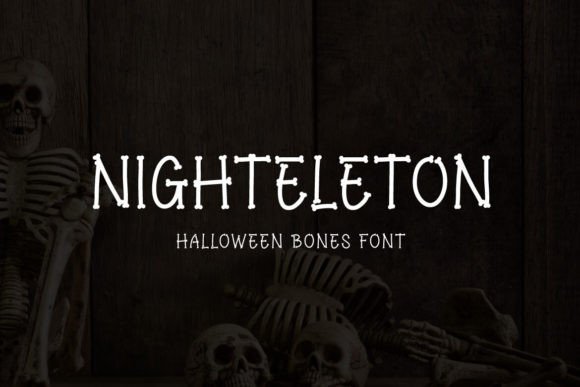
Journey into the realm of the supernatural with Nighteleton, a decorative font family that will cast an eerie spell on your designs. This Halloween-inspired creation from Mightyfire is the perfect choice for conjuring an atmosphere of spine-tingling mystery.
Picture this: a haunting poster announcing your upcoming Halloween bash, adorned with Nighteleton's bone-chilling letters. Each character stands out like an ethereal skeleton, captivating attention and sending shivers down the spines of your invitees. Or imagine sending out eerie invitations, each one a whispered secret, as Nighteleton's macabre charm weaves its magic.
Nighteleton is not just a font; it's a gateway to the world beyond. Unleash its spectral power to transform ordinary text into bone-chilling messages that will linger in the minds of your audience long after Halloween has passed.
With Nighteleton, the possibilities are endless. Craft breathtaking logos that exude an aura of mystery, design spine-chilling social media posts that will haunt your followers' feeds, or create unforgettable branding that will leave a lasting impression.
Whether you're a seasoned graphic designer seeking a font with character or a creative entrepreneur looking to add a touch of spooky charm to your marketing materials, Nighteleton is your perfect companion. Its versatility extends beyond Halloween, making it an excellent choice for horror-themed projects, haunted house promotions, and other spine-tingling endeavors.